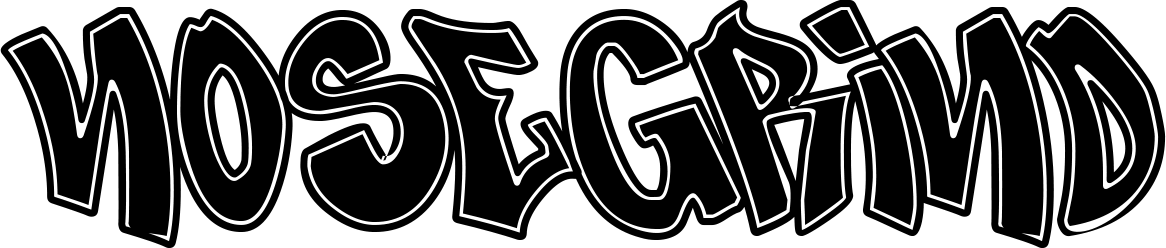
Nosegrind Font
If you need a cool vibe for your design, Nosegrind is a nice choice as a graffiti font. Although Nosegrind does not contain lowercase and numbers and has only a limited number of punctuation marks, it offers two sets of caps that look similar and have various details.
This untidy and chunky font is suitable for logos, titles, backgrounds, product packaging, print t-shirts, and more creative projects. Let’s try this modern street art font and enjoy it.